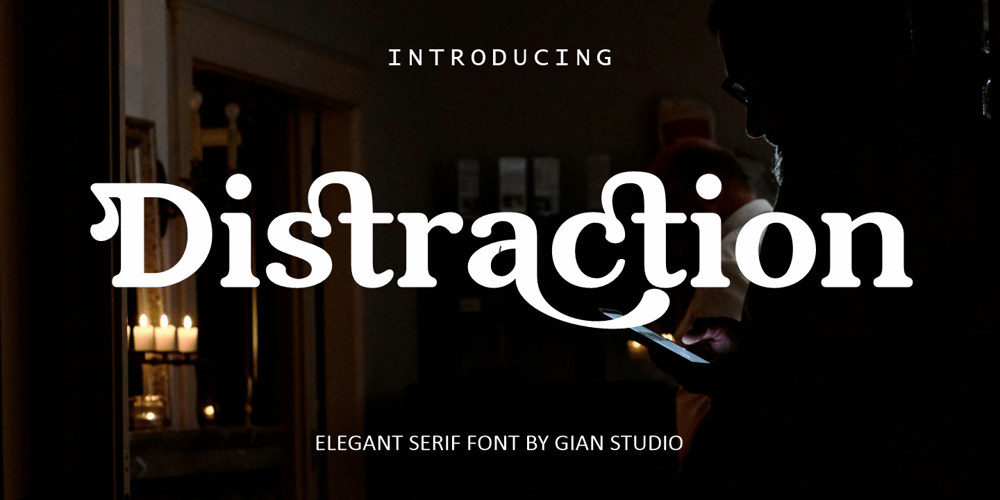
Distraction Font Family was designed by Yusliana M Isa and published by Gian Studio. Distraction contains 1 styles and family package options. Distraction is a soft and very elegant font for branding and logo designs. A soft serif typeface combined with a classy and modern style. This type of font is perfect for your various needs such as branding projects, logos, wedding designs, social media posts, advertisements, product packaging, product designs, labels, photography, watermarks, invitations, stationery and any project, created in a legibility high level.What you get:OT/TT files Regular & Punctuation Accented Characters (Western Europe) Works on PC & MacDistraction can be accessed in Adobe Illustrator, Adobe Photoshop, Coreldraw, and even works in Microsoft Word. PUA Coded Characters – Fully accessible without additional design software. Fonts include multilingual support.Feel free to follow, like and share. Thank you very much for visiting my shop!If you need a special license or have questions, please send an email to: gianstudio12@gmail.comThank you for visiting my produc